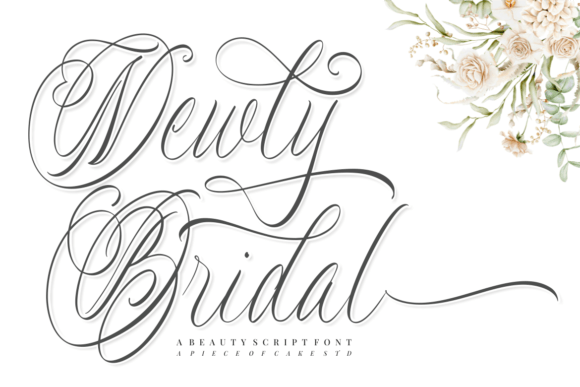
Introducing Newly Bridal Font, the ultimate choice for those seeking the best font for modern logos! This stunning script font, created by a piece of cake, is the epitome of elegance and sophistication. With its exquisite design, it is guaranteed to captivate anyone looking to enhance their creative projects.
Are you planning a wedding and in need of the perfect font to complement your theme? Look no further than Newly Bridal! This font exudes romance and grace, making it an ideal choice for all your wedding-related designs. From invitations to place cards, this font will add a touch of elegance to every detail, ensuring a truly memorable celebration.
But Newly Bridal isn't just limited to weddings. Are you an Instagram influencer or social media enthusiast looking to make your posts stand out? This font will instantly elevate your content, making it eye-catching and irresistible to your followers. With Newly Bridal, your captions and quotes will become a work of art, reflecting your unique style and personality.
Calling all DIY enthusiasts! Whether you're creating personalized gifts, home decor, or handmade cards, Newly Bridal is the ultimate tool to unleash your creativity. Its calligraphy-inspired script will effortlessly transform your projects into stunning masterpieces. Let your imagination run wild as you explore the countless possibilities this font offers.
One of the best features of Newly Bridal is its PUA encoding. This means that accessing and incorporating all the glyphs and swashes into your designs is a breeze. No more hassle or limitations – you have complete freedom to customize and embellish your creations with ease.
Unleash the power of Newly Bridal Font and watch as your designs come to life. Its captivating charm and versatility make it the perfect choice for a wide range of creative endeavors. Whether you're a professional designer or a passionate hobbyist, this font will effortlessly elevate your work to new heights.